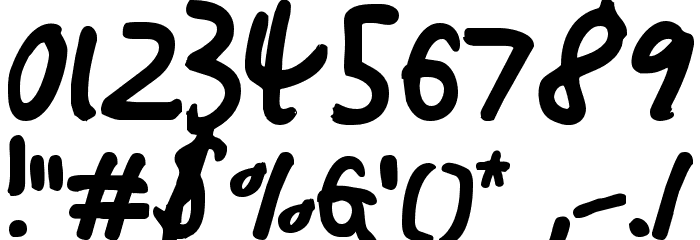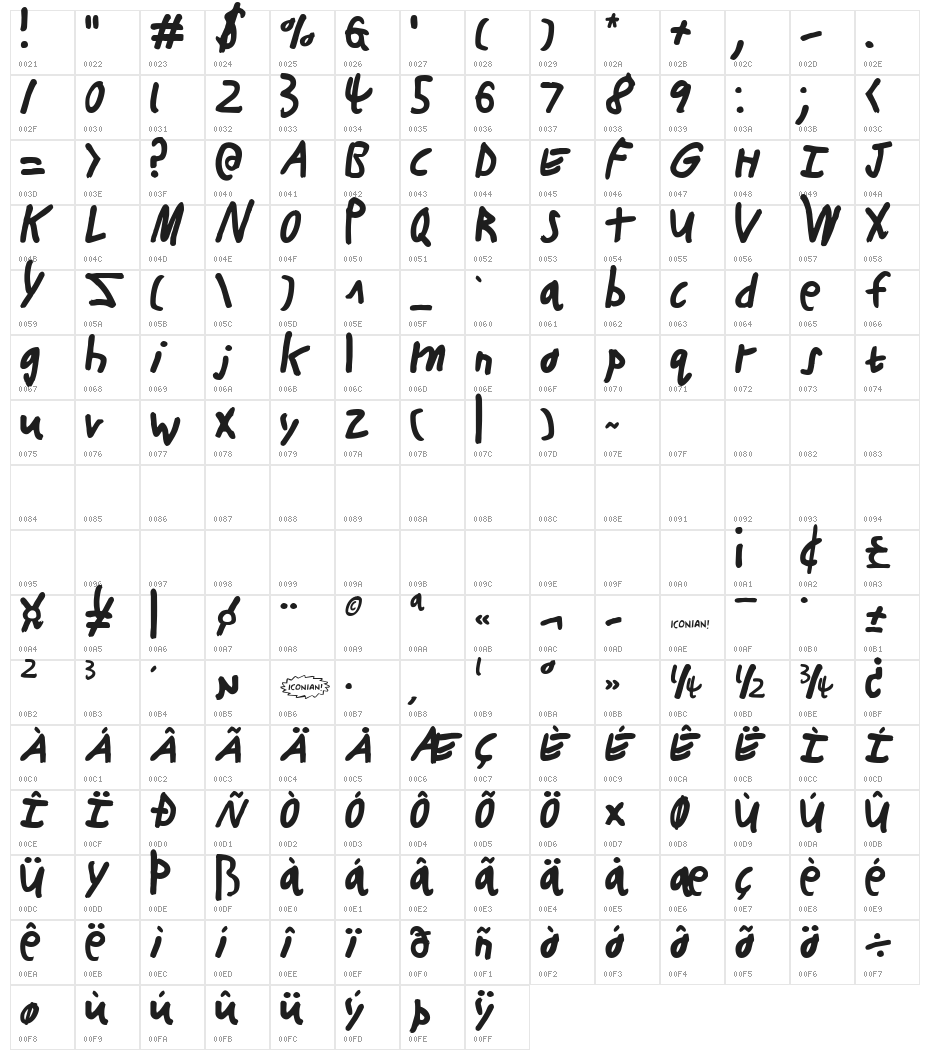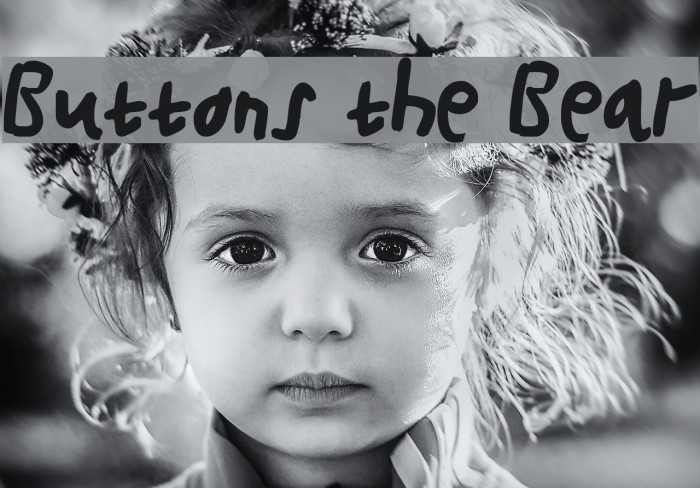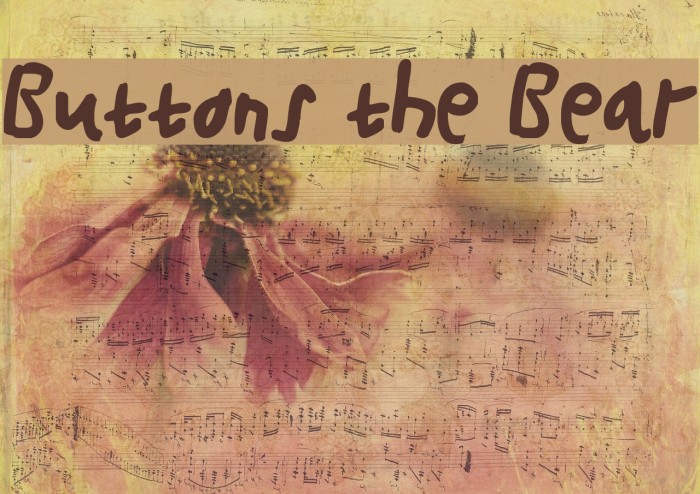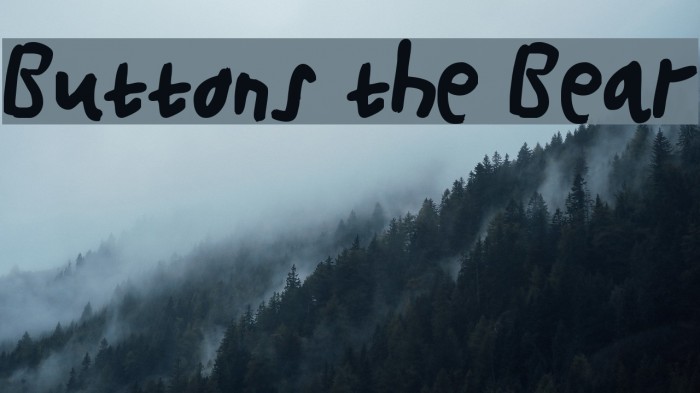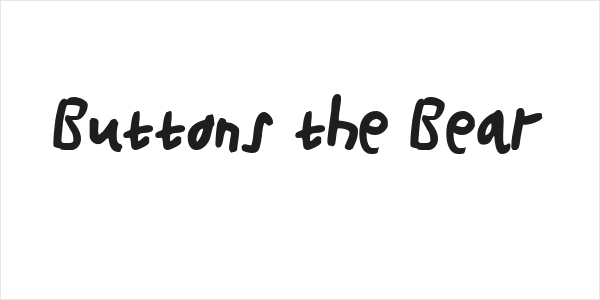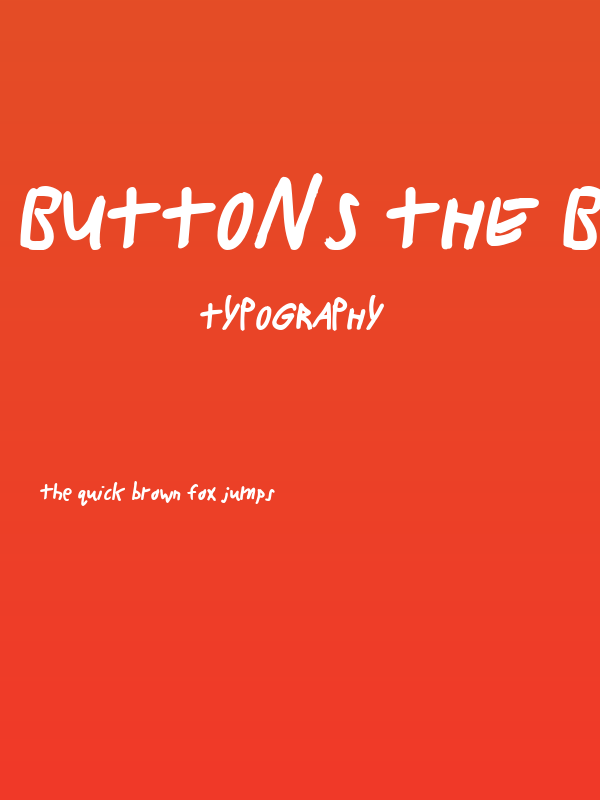
Buttons the Bear Font
Buttons the Bear Description
This font exudes a playful and casual handwritten style, characterized by its bold and slightly irregular strokes. The letters have a spontaneous and lively appearance, with a natural flow that mimics the look of hand-drawn text. The uppercase and lowercase letters maintain a consistent style, while the numbers and special characters blend seamlessly with the overall design. The font's informal nature makes it ideal for projects that require a personal touch or a sense of whimsy. Its boldness ensures readability, while the uneven lines add a unique charm.
| Proposed Projects | Ideal for children's books, greeting cards, playful branding, and casual invitations. |